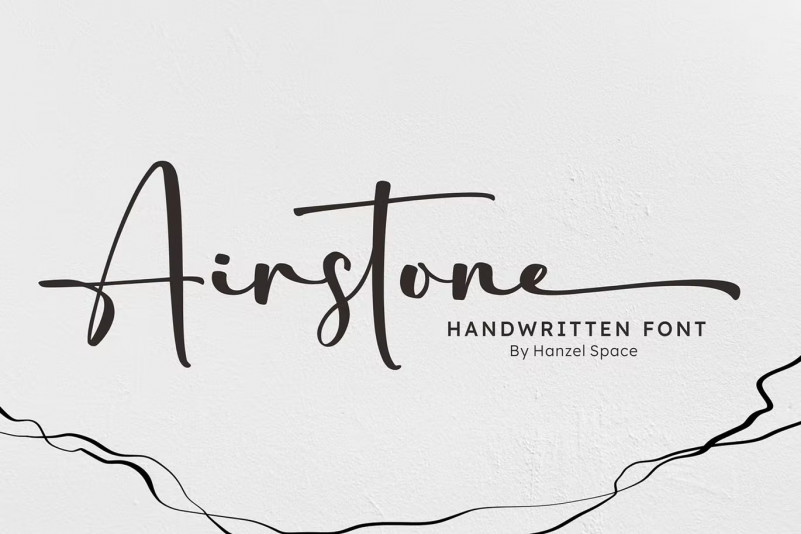
Airstone Font
Airstone | Handwritten Font, every single letter has been carefully crafted to make your text looks beautiful. With modern script style this font will perfect for many different project ex: photography, watermark, quotes, blog header, poster, wedding, branding, logo, fashion, apparel, letter, invitation, stationery, book, etc.